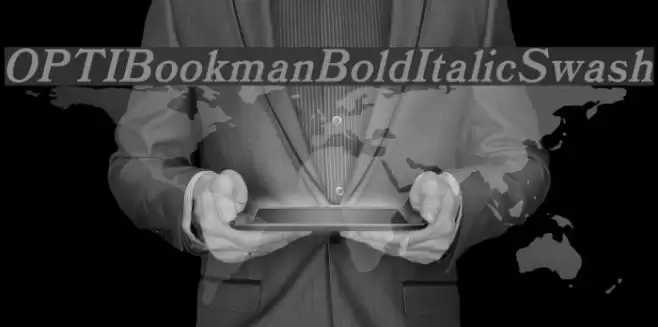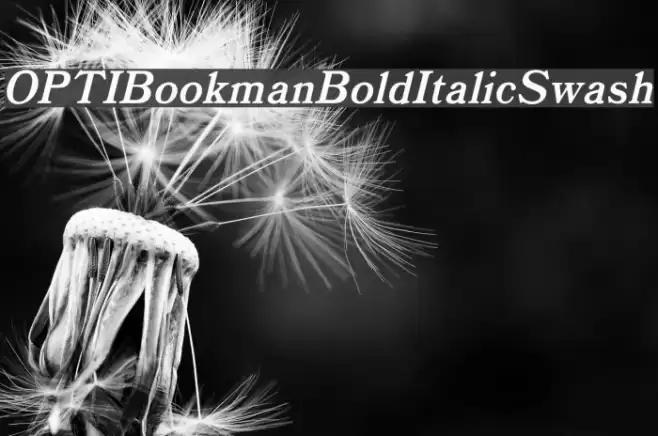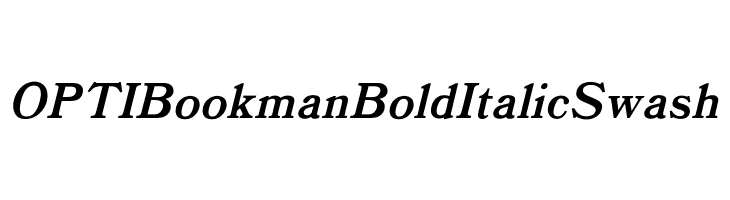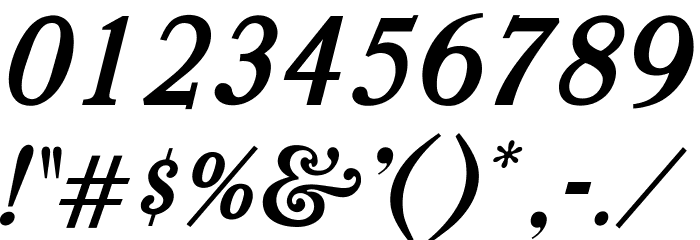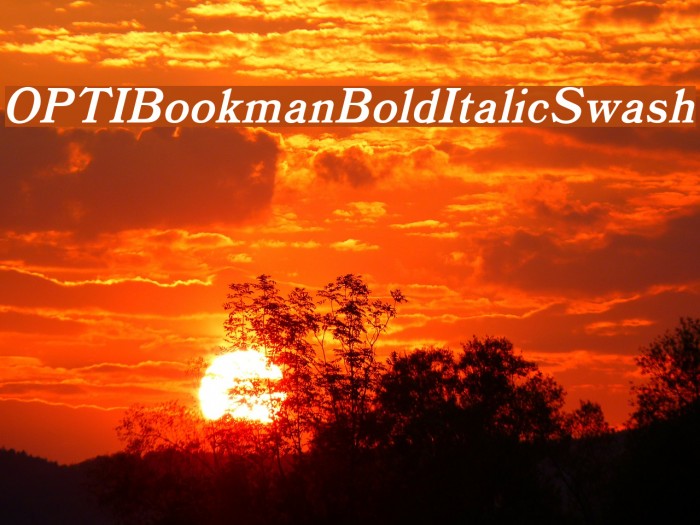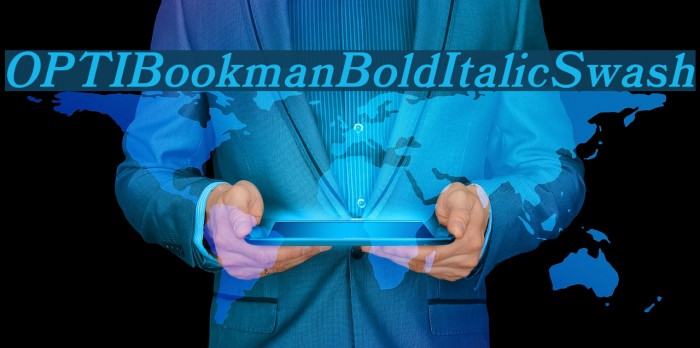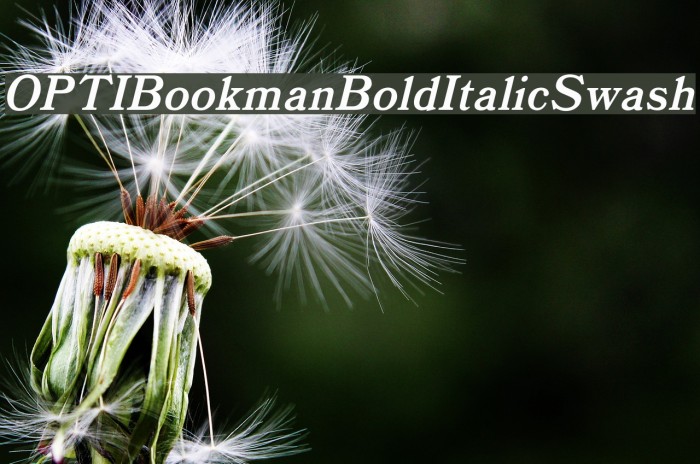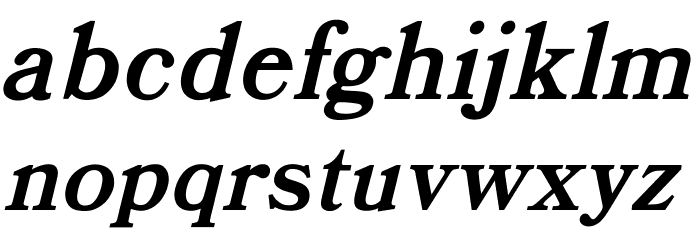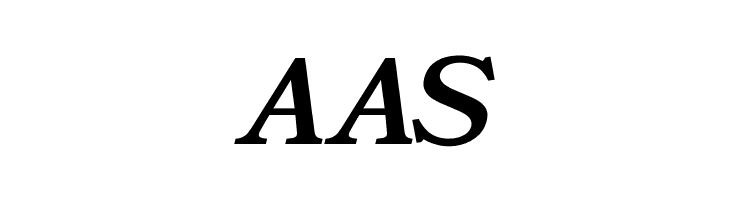
OPTIBookmanBoldItalicSwash Font
OPTIBookmanBoldItalicSwash Description
This font exudes a classic elegance with its bold and italicized swash style. The characters are well-defined with a slight slant, adding a dynamic and sophisticated touch. The uppercase letters are grand and commanding, while the lowercase letters maintain a graceful flow. The numerals are clear and prominent, ensuring readability. Special characters are stylishly integrated, enhancing the overall aesthetic. The font's swash elements provide a decorative flair, making it suitable for formal and creative applications.
A bold, italic swash font with classic elegance and decorative flair from Uncategorized fonts.
- Proposed Projects: Ideal for wedding invitations, luxury branding, editorial headlines, and elegant signage.
- Overall Style: Classic
- Use Case: Headlines, Logos, Invitations